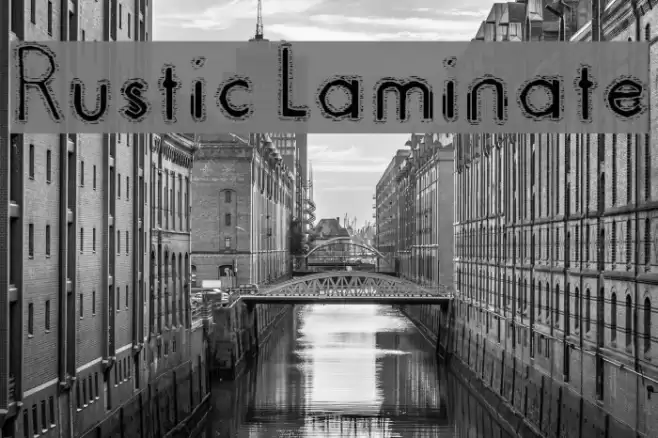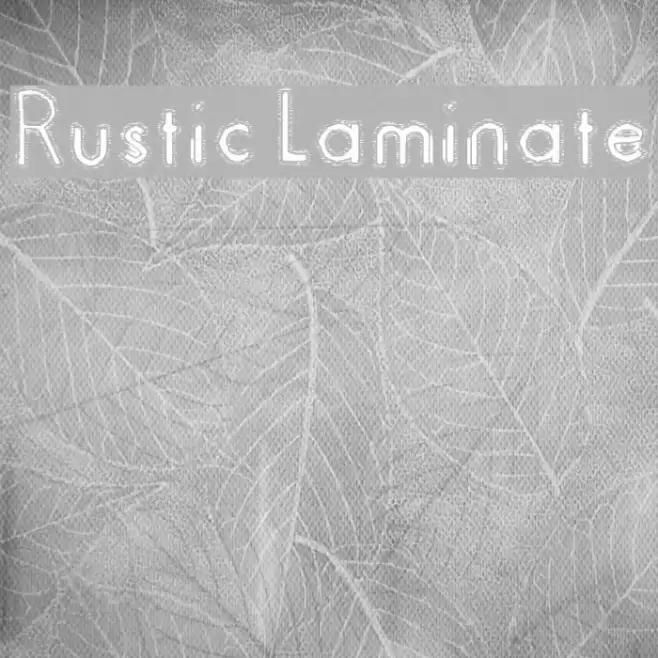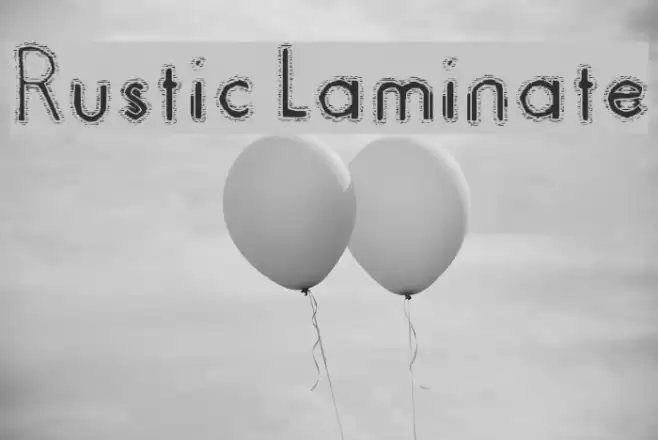
Rustic Laminate Font
Rustic Laminate Description
This font features a rustic, hand-drawn aesthetic with a textured appearance that gives it a vintage feel. The uppercase and lowercase letters are slightly irregular, adding to the handcrafted look. The strokes are uneven, with a distressed effect that suggests wear and age. The overall design is playful yet sophisticated, making it suitable for projects that require a touch of nostalgia or a personal, artisanal touch. The characters are well-spaced, ensuring readability while maintaining the unique style. The font's distinct personality makes it ideal for creative and decorative uses.
A rustic, hand-drawn font with a textured, vintage appearance from Uncategorized fonts.
- Proposed Projects: Ideal for branding, packaging, invitations, and signage that require a handcrafted or vintage look.
- Overall Style: Vintage
- Use Case: Logos, Headlines, Decorative text